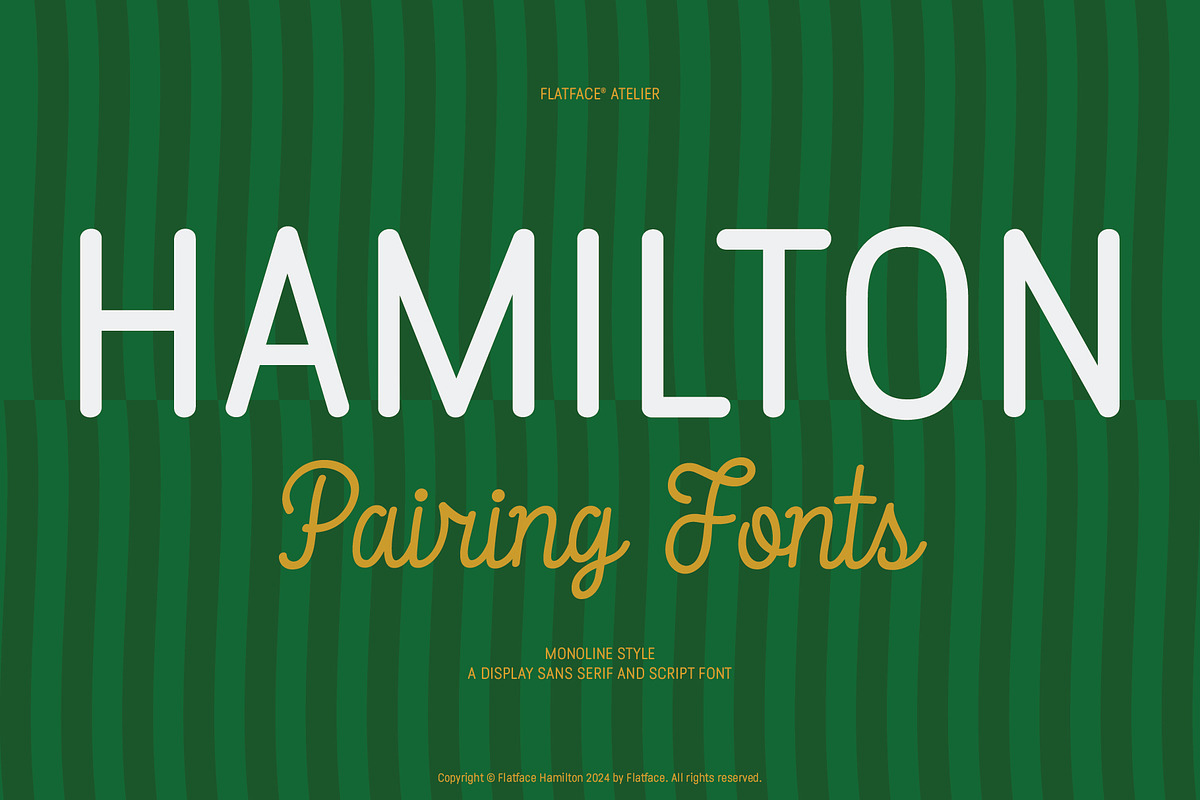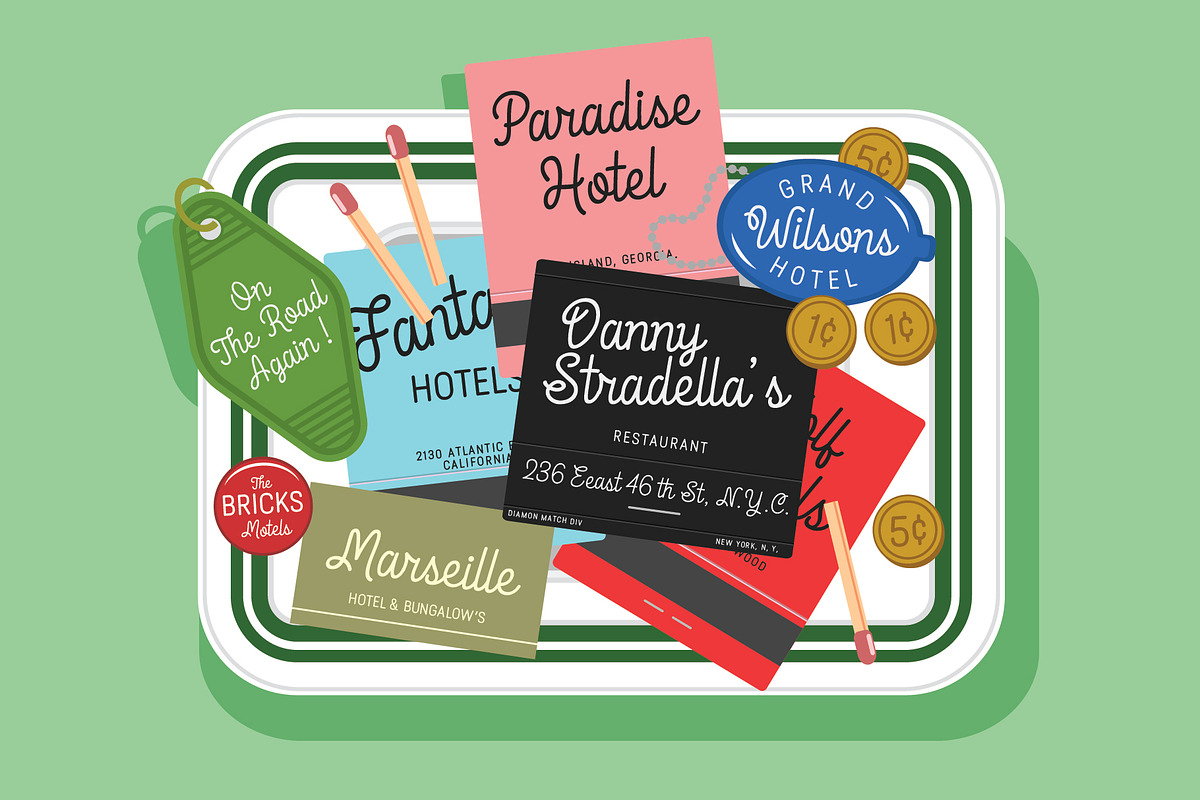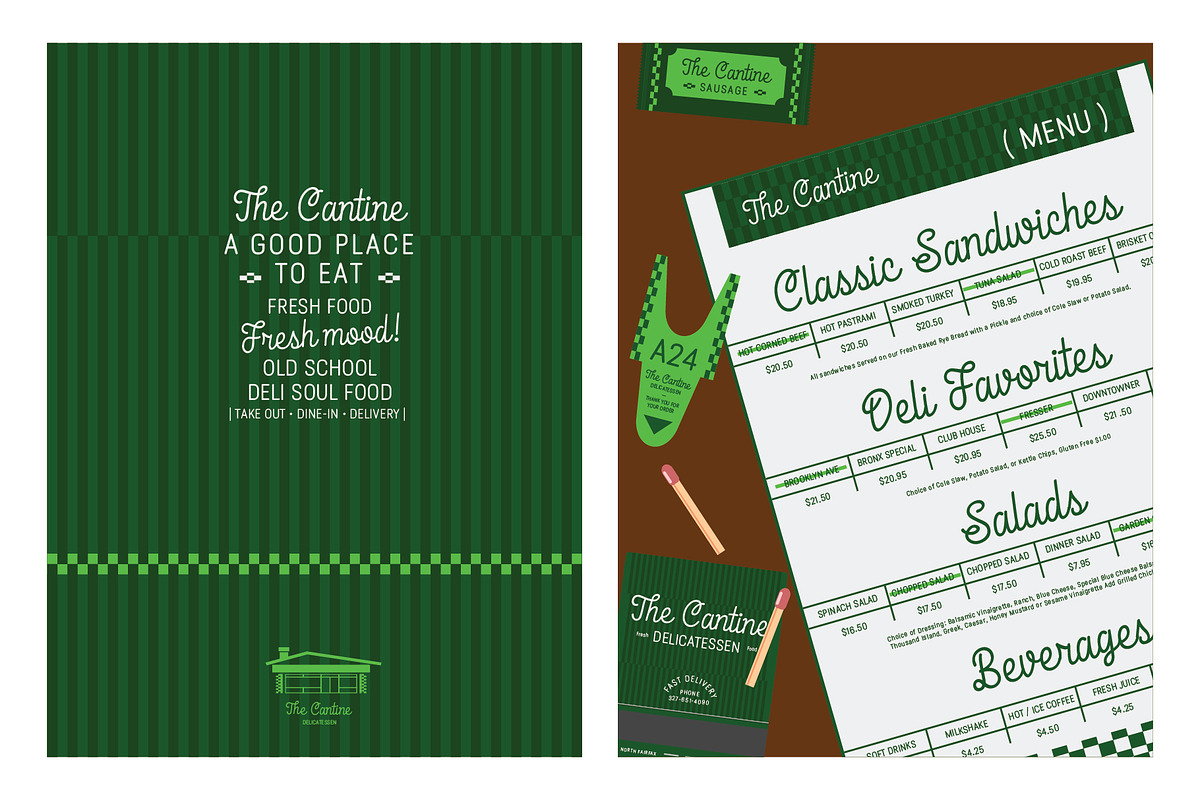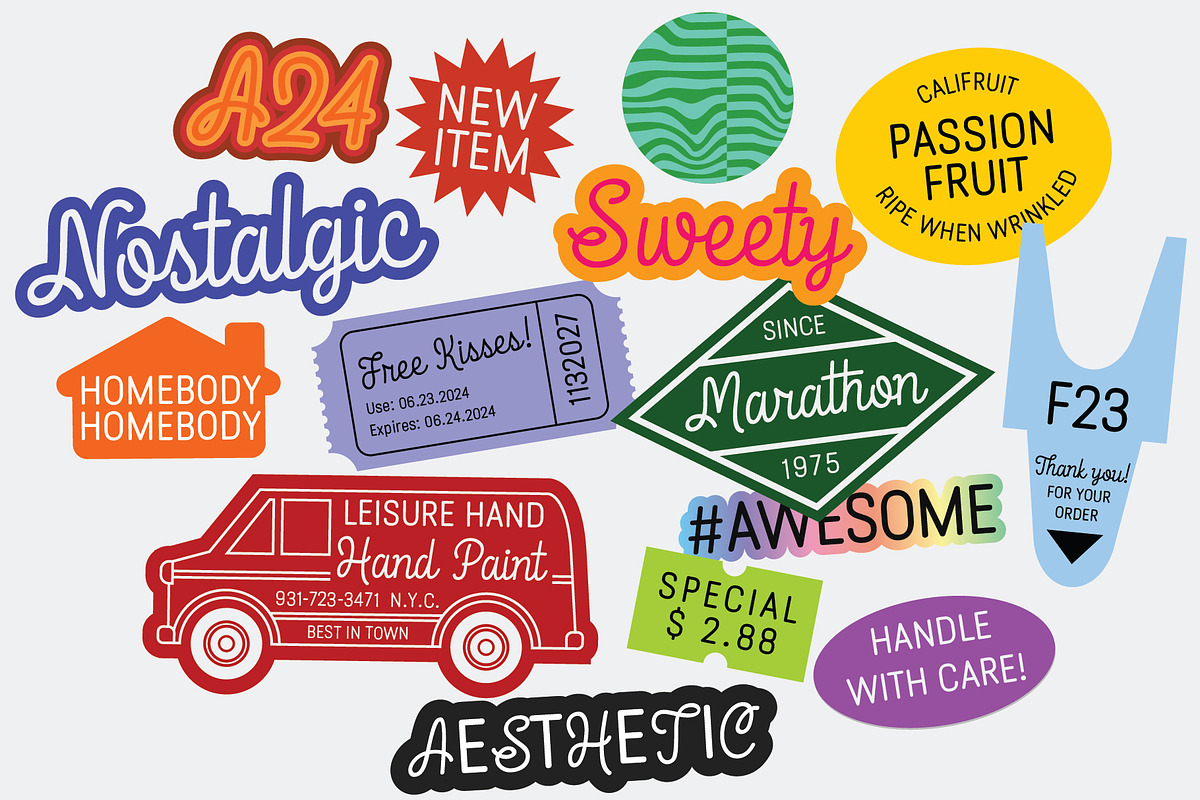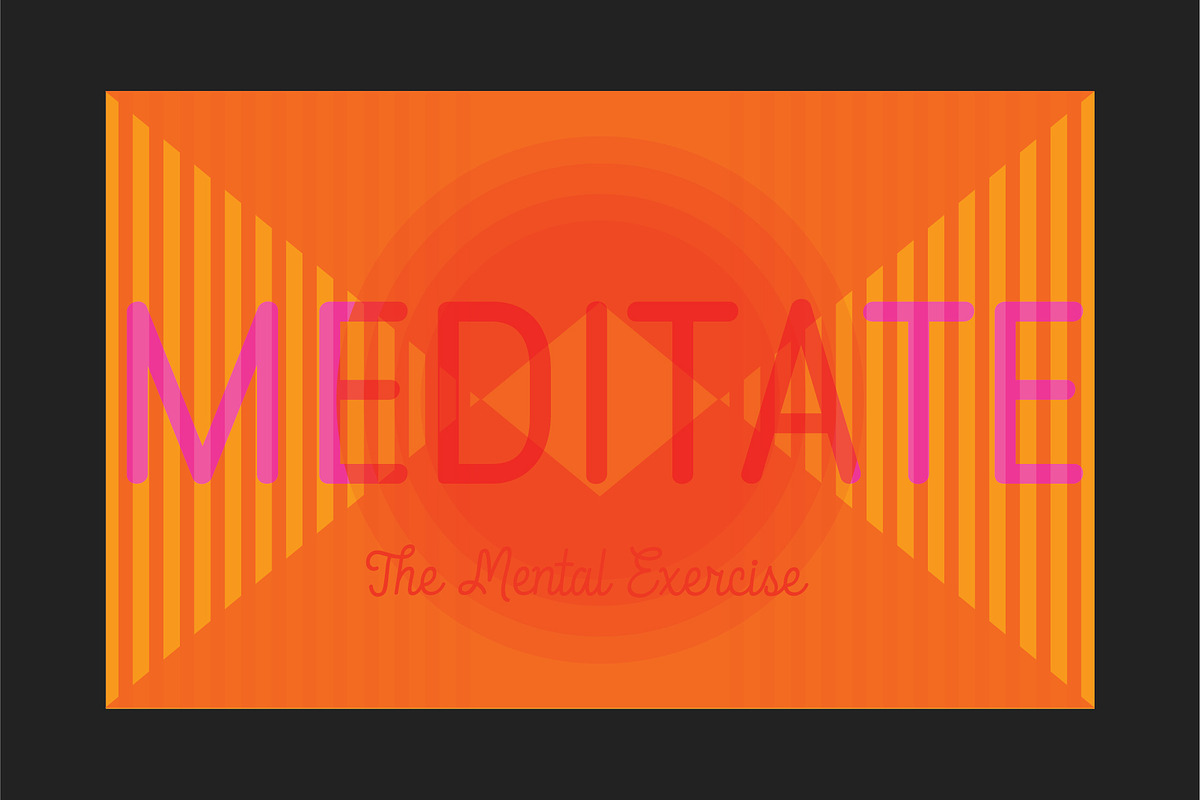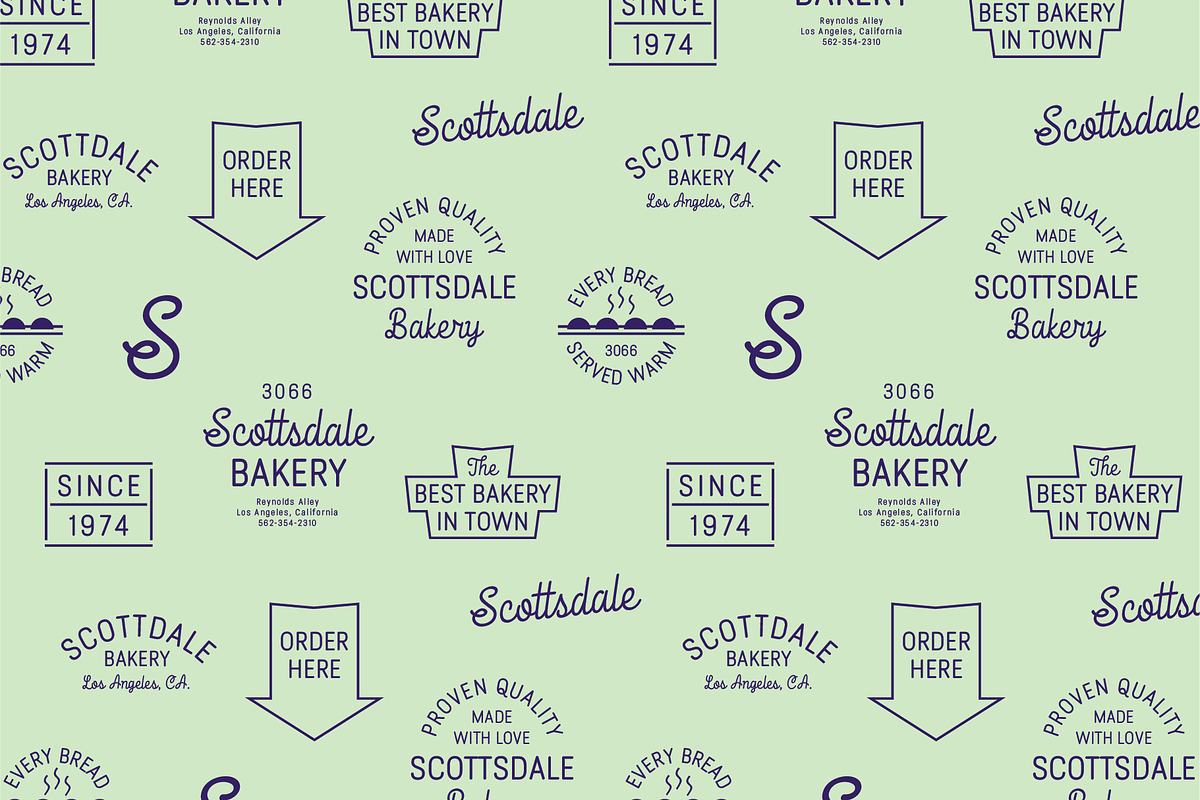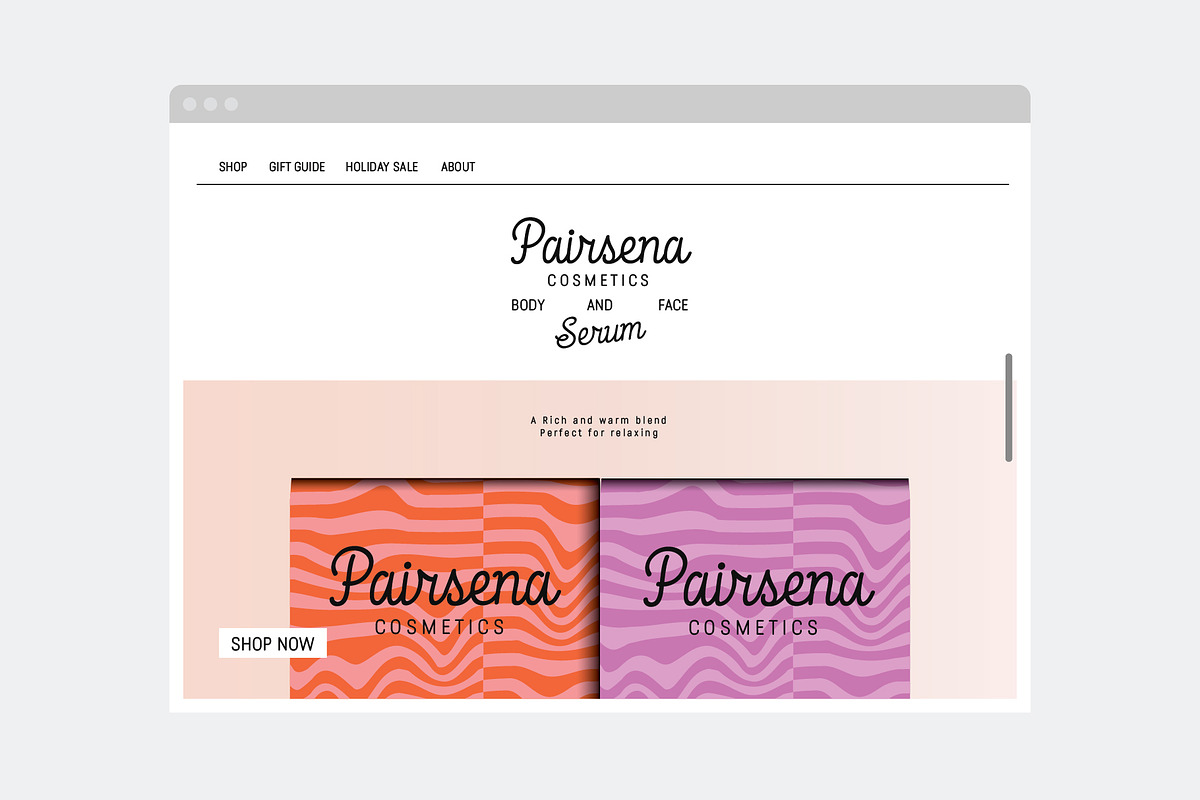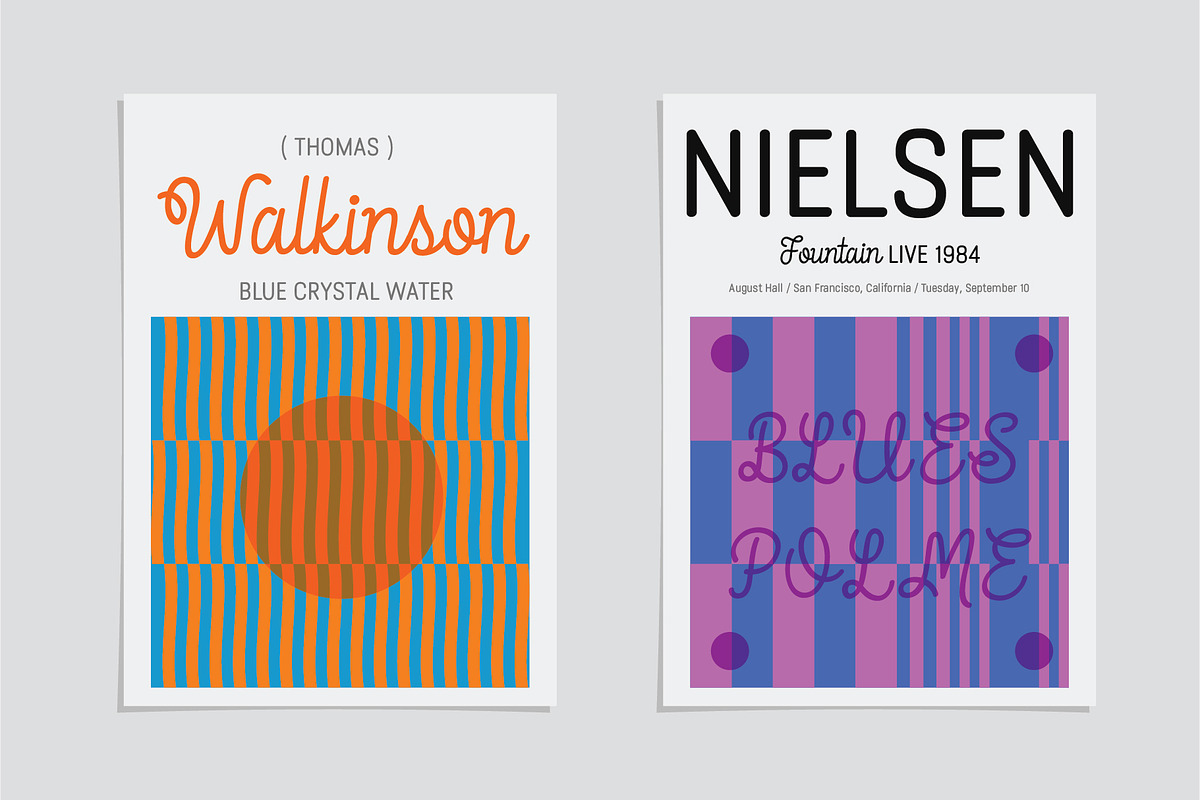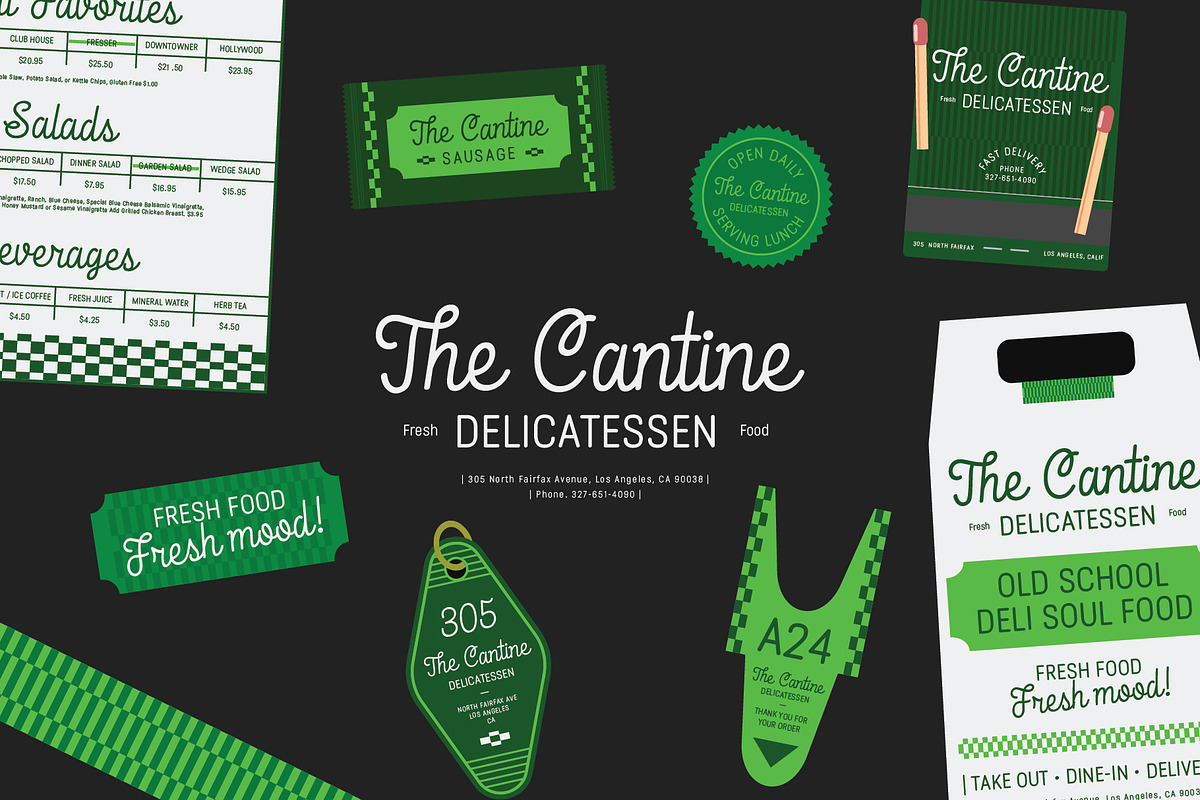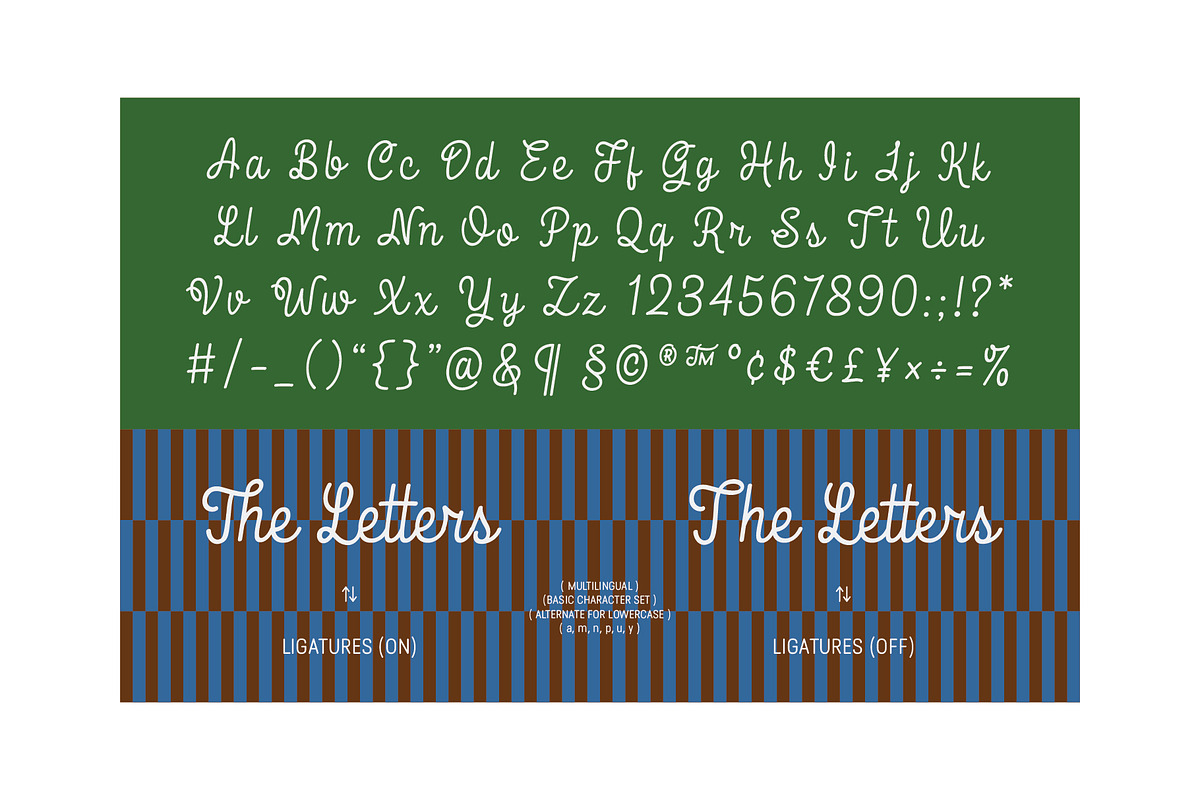
Flatface Hamilton Pairing Font
Flatface Hamilton Pairing font
Is a display font duo script and sans serif who is inspired by the American classic era Giving an elegant style, full of nostalgia and never out of date.
Combine with the script will create a unique impression.
This font comes with opentype features such ligature and alternate for lowercase and support Language Extended Latin.
This font is perfect for your creative projects such as Logotype, printed quotes, invitations, cards, product packaging, headers, Letterhead, Apparel , Web design, Magazine, Book, etc.
Suitable for any creative project and of course will each project easier and more playful.